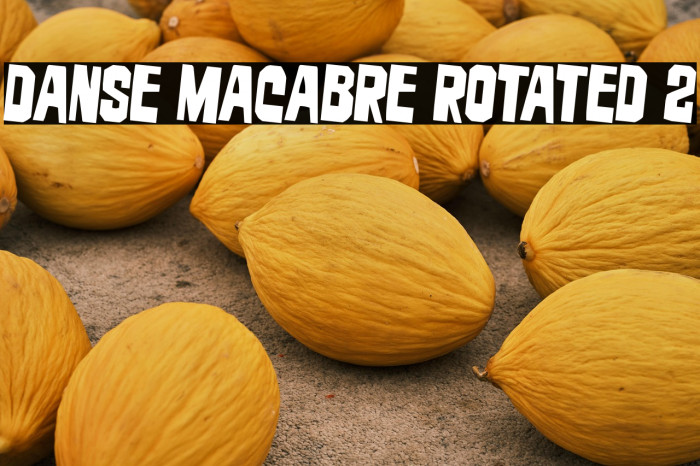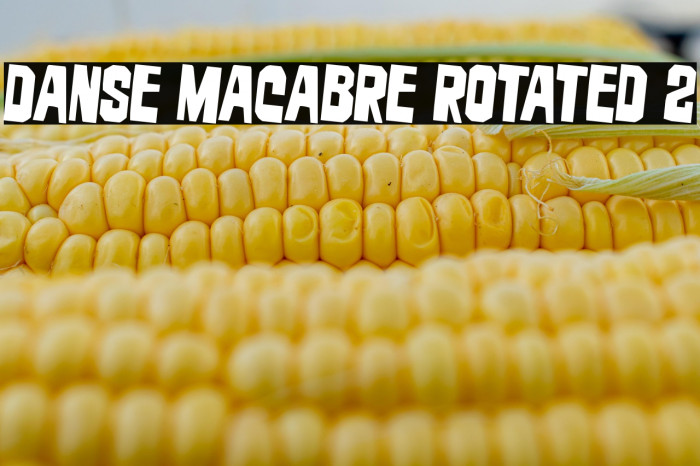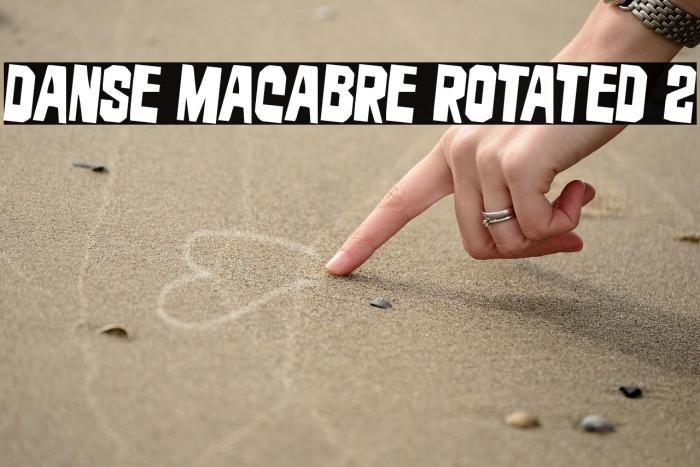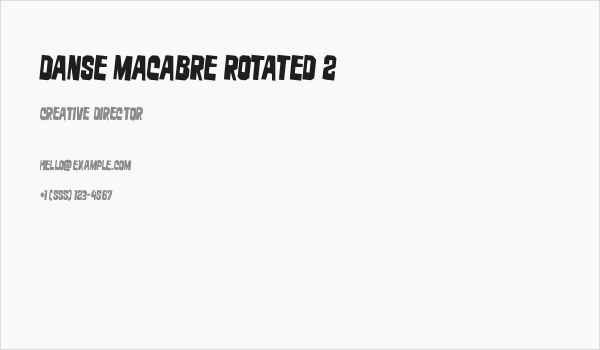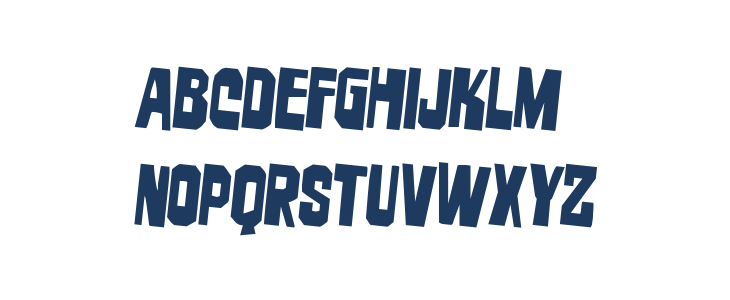
Danse Macabre Rotated 2 Font
Danse Macabre Rotated 2 Description
This font features a bold and dynamic design with a strong presence. The characters are angular and slightly slanted, giving a sense of movement and energy. The uppercase letters are prominent and commanding, while the numbers and special characters maintain the same bold style. The font's unique geometric shapes and sharp edges make it stand out, ideal for projects that require a striking visual impact. The overall style is modern and edgy, suitable for creative and unconventional designs.
| Overall Style | Modern, Edgy |
| Proposed Projects | Perfect for posters, album covers, video game graphics, and branding that requires a bold statement. |